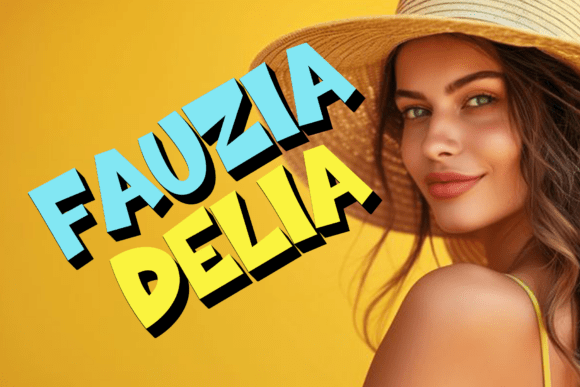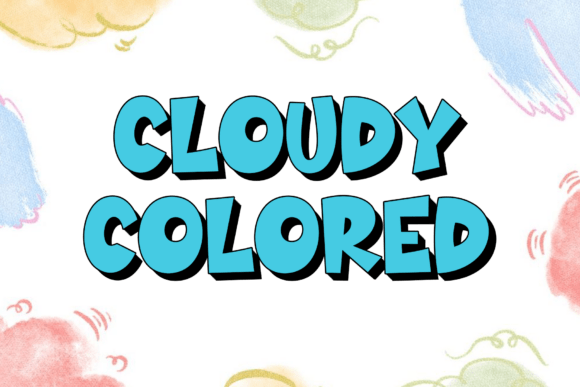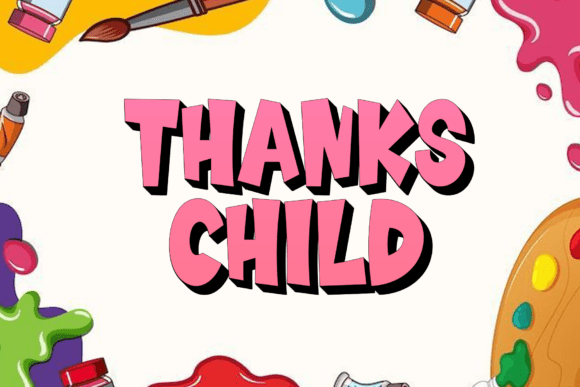
The Joyful World of Child School Font: A Designer’s Delight
I’ll never forget the time I was working on a project for a children’s book, and I just couldn’t find the right font. The client wanted something fun, playful, and engaging, but everything I tried seemed either too boring or too over-the-top. That’s when I stumbled upon Child School Font, and it was love at first sight! 💕
With its rounded, slightly retro twist, Child School Font has a sweet personality that’s perfect for a wide range of creative projects. In this article, I’ll share my honest review of this delightful font, provide a practical guide on how to use it, and explore some similar fonts you might enjoy.
- ✅ Playful and fun: Child School Font has a bold, cheerful design that’s sure to bring a smile to anyone’s face.
- ✅ Highly legible: The font’s thick, playful strokes make it easy to read, even at smaller sizes.
- ✅ Multilingual support: Child School Font supports a wide range of languages, making it a great choice for global projects.
- ✅ Extensive character set: The font includes uppercase and lowercase letters, numbers, punctuation, and a variety of symbols.
Small Quirks and Limitations 🤔
- ⚠️ Limited use in formal contexts: Child School Font is best suited for informal, creative projects; it may not be the best choice for formal or professional applications.
- ⚠️ Some glyphs may require manual adjustment: Depending on the project, you may need to tweak certain glyphs to get the perfect fit.
A Practical Guide to Using Child School Font
The Story Behind Child School Font
Child School Font was designed with the intention of creating a fun, friendly font that would bring joy to creative projects. The designer aimed to craft a font that would be both playful and legible, making it perfect for a wide range of applications. With its rounded shapes and quirky personality, Child School Font is sure to delight designers and crafters alike.
| What is Child School Font best suited for? | Child School Font is perfect for creative projects that require a fun, playful touch, such as kids’ books, snack packaging, branding, and craft projects. |
| Is Child School Font suitable for formal contexts? | No, Child School Font is best suited for informal, creative projects. It may not be the best choice for formal or professional applications. |
| Does Child School Font support multilingual text? | Yes, Child School Font supports a wide range of languages, making it a great choice for global projects. |